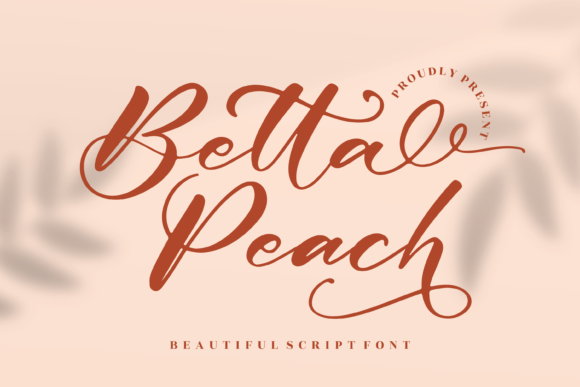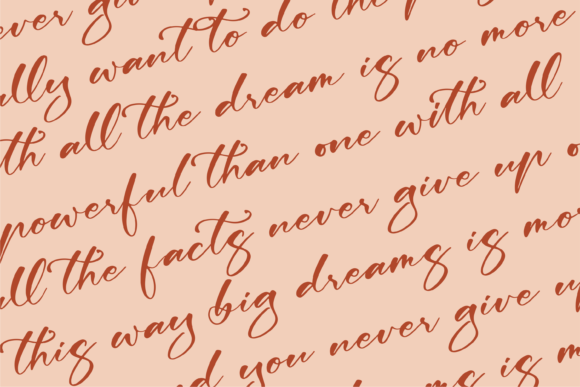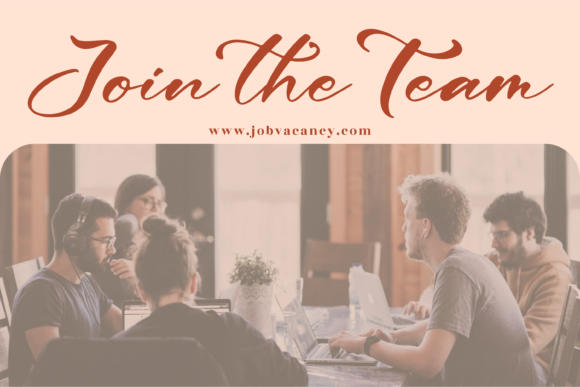
About Betta Peach Font
Betta Peach is a beautiful script font suitable for any projects such as logos, branding projects, homeware designs, product packaging, mugs, quotes, posters, shopping bags, t-shirts, book covers, name cards, invitation cards, and greeting cards. It’s also a perfect fit for labels, photography, watermark, special events, and all your other lovely projects that need a beautiful script taste.